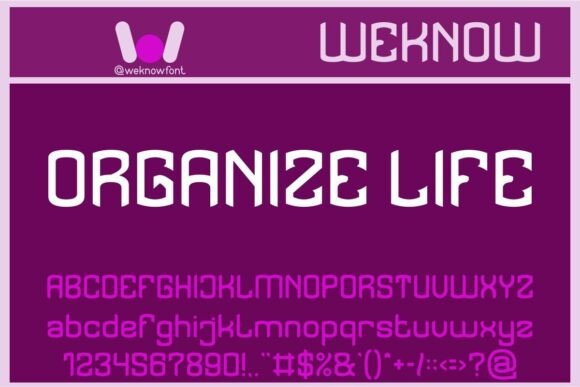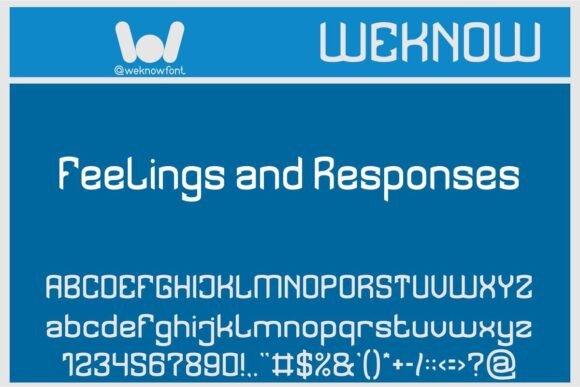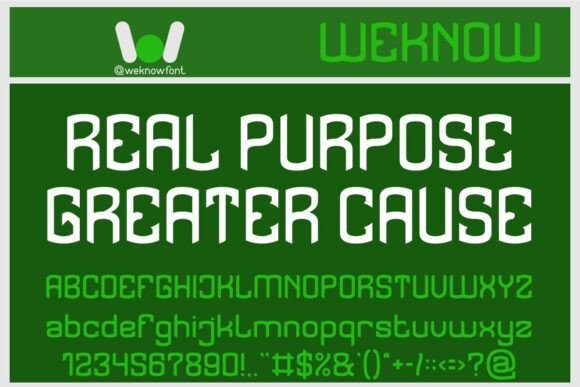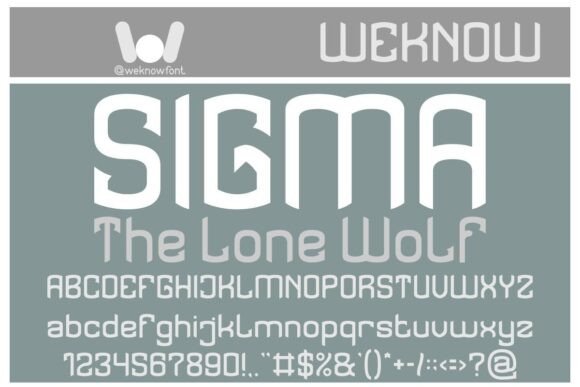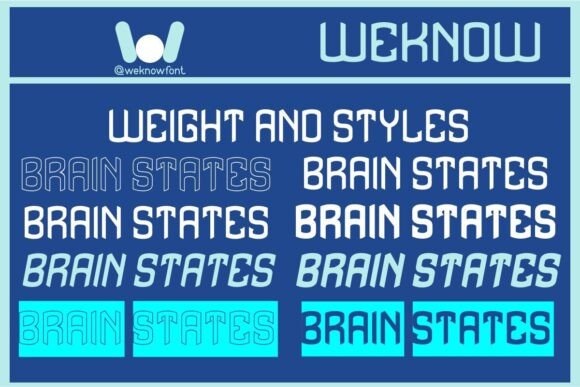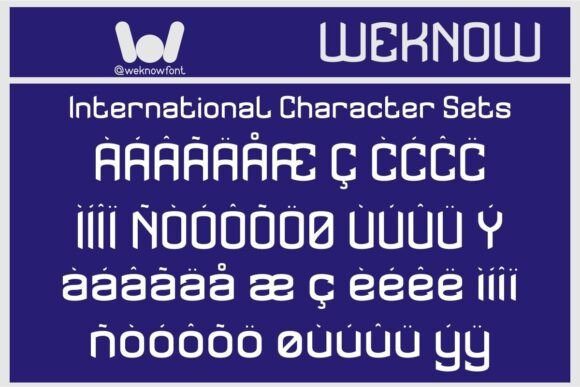
Brain States Font: Unleash the Power of Contemporary Gothic Style
In the realm of typography, fonts play a pivotal role in shaping the visual identity of a brand, product, or creative project. Among the myriad of fonts available, one that stands out for its unique blend of power, dominance, and style is the Brain States Font. This contemporary gothic-inspired display font is engineered to make a statement, offering a distinctive mix of sharp edges and fancy undertones that capture the essence of formidable creatures like sharks and wolves.
The Essence of Brain States Font
Brain States Font is not just another addition to the vast sea of typefaces; it’s an experience. It embodies the strength and resilience of a shark and the wild, untamed spirit of a wolf. This font is perfect for designers and crafters looking to infuse their projects with a sense of boldness and sophistication. Whether you’re crafting a striking headline, designing a brand identity, or creating engaging content for music, movies, or games, Brain States Font is the perfect companion.
One of the standout features of Brain States Font is its versatility. It’s designed to excel in a wide range of applications, making it a valuable asset for any designer or creative professional. Here are some of the areas where Brain States Font truly shines:
- Headlines and Brand Identities: Create impactful headlines and brand identities that demand attention and leave a lasting impression.
- Logos and Logotypes: Add an element of sophistication and power to your logos and logotypes, setting your brand apart from the competition.
- Apparel Designing: Elevate your apparel designs with a font that speaks to a bold and stylish audience.
- Music, Movies, and Games: Enhance your creative projects in the entertainment industry with a font that exudes energy and dynamism.
- Magazine Layouts, Books, and Comic Covers: Add an edge to your print projects with a font that’s as engaging as it is stylish.
Digital Dominance
In today’s digital age, having a font that excels online is crucial. Brain States Font is meticulously designed to make a significant impact in the digital space. Its strokes are clean, clear, and captivating, making it an excellent choice for:
- YouTube Channels: Stand out in a crowded YouTube landscape with titles and descriptions that pop.
- Instagram Stories and Posts: Elevate your Instagram game with stories and posts that are visually stunning and engaging.
- Website Design: Enhance your website’s visual appeal and user experience with a font that’s both stylish and legible.
Why Choose Brain States Font?
Choosing Brain States Font for your creative projects comes with numerous benefits:
- Unique Style: A contemporary gothic-inspired font that stands out in any medium.
- Versatility: Suitable for a wide range of applications, from print to digital.
- Impact: Designed to make a statement and leave a lasting impression.
- Legibility: Clear and readable, even at smaller sizes, making it perfect for body text and captions.
Brain States Font is more than just a typeface; it’s a tool for creative expression. With its unique blend of power, style, and versatility, it’s poised to become an indispensable part of your design arsenal. Whether you’re a seasoned designer or a crafty DIY enthusiast, Brain States Font offers the perfect combination of contemporary gothic style and readability, making it an excellent choice for any project. Unleash the power of Brain States Font and take your creative projects to the next level.